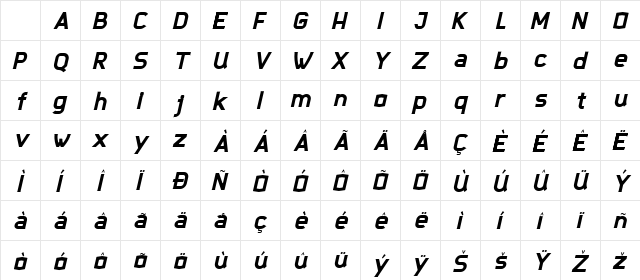
Djavaloca - DEMO is a composed and adaptable typeface that performs quietly and consistently across a wide range of design contexts. The slanted form adds forward momentum and visual energy.